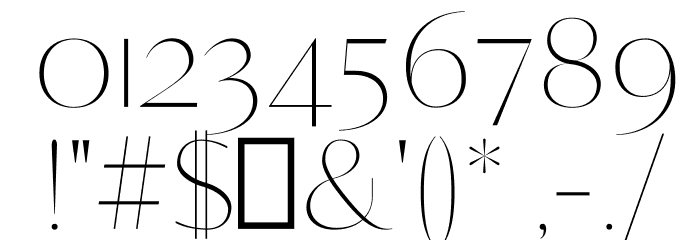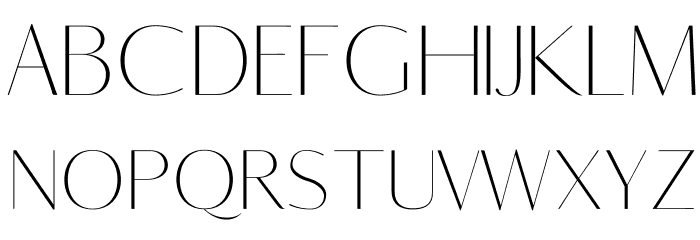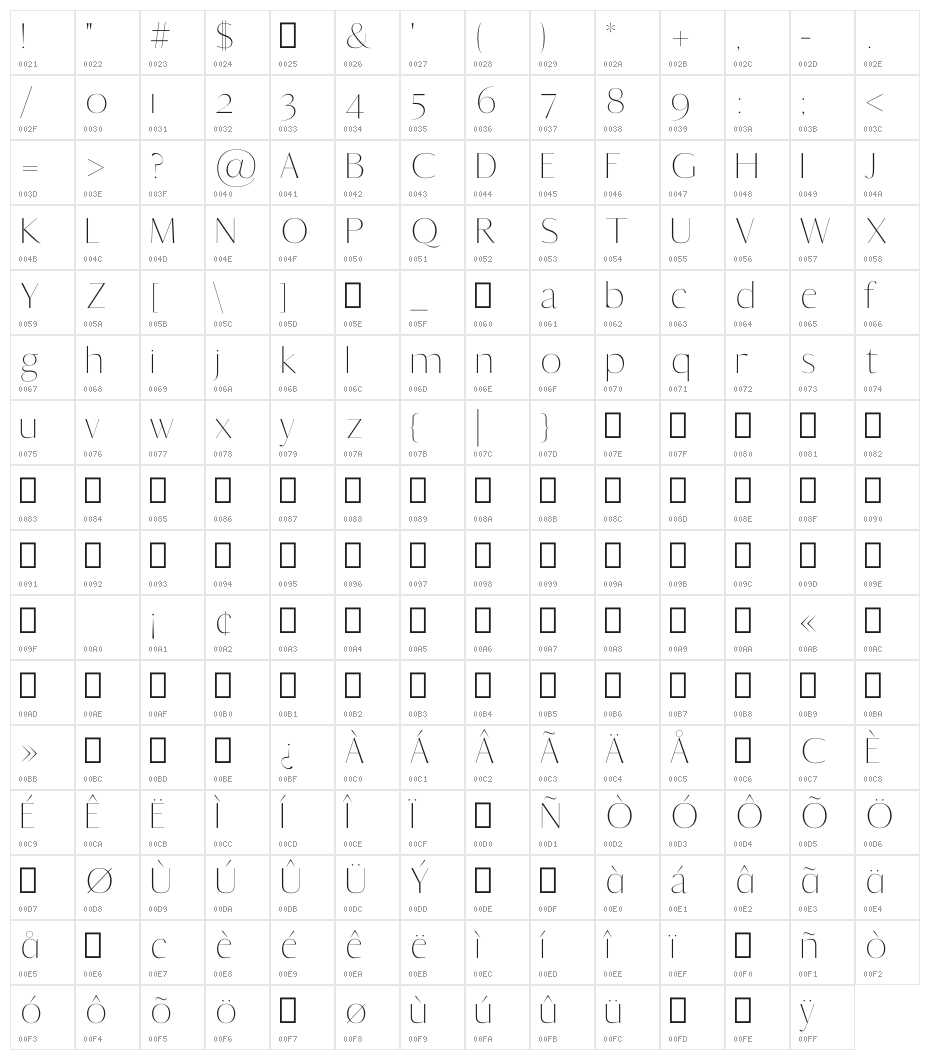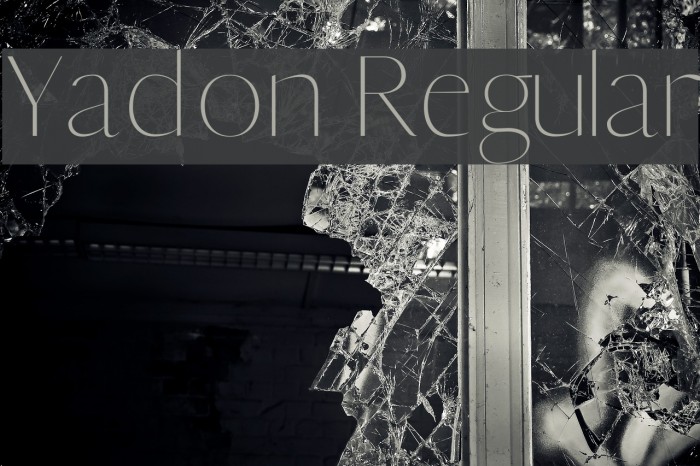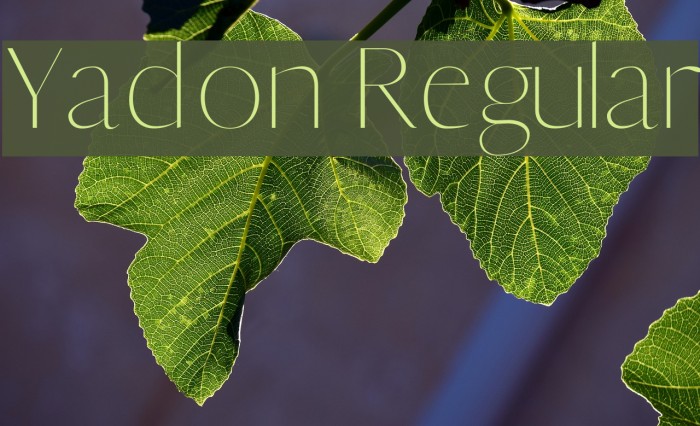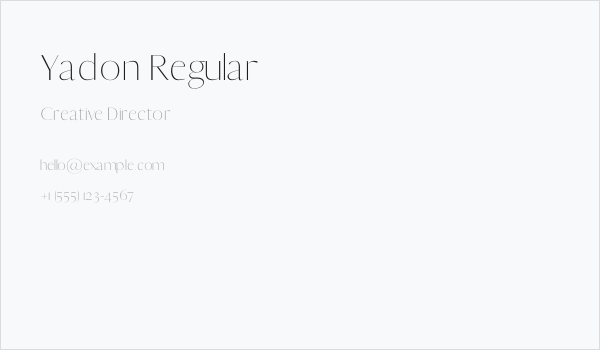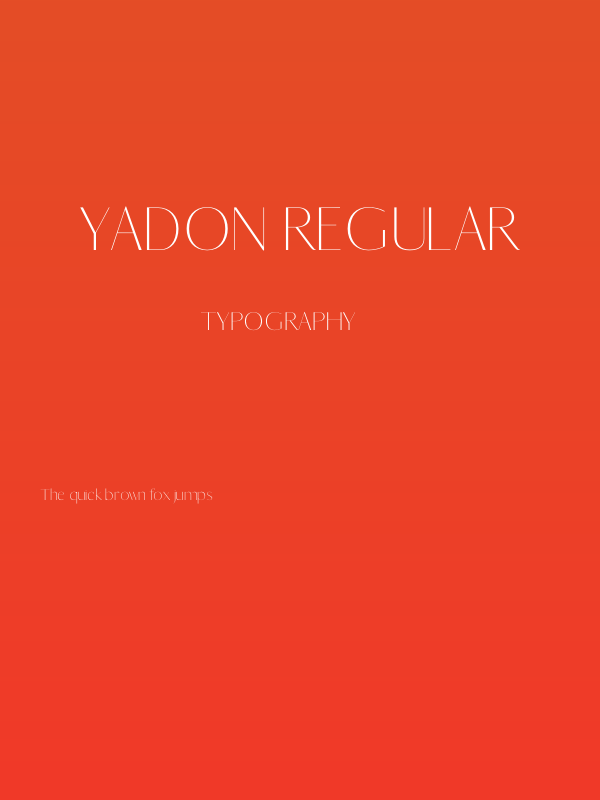
Yadon Regular Font
Yadon Regular Description
This font features a sleek and modern design with clean, geometric lines. The uppercase letters are tall and elegant, with a slight contrast in stroke thickness that adds a touch of sophistication. The lowercase letters maintain a consistent style, offering a harmonious blend of curves and straight lines. The numerals are distinct and easy to read, complementing the overall aesthetic. Special characters are well-integrated, maintaining the font's minimalist and contemporary feel. This typeface is versatile, suitable for a variety of design applications.